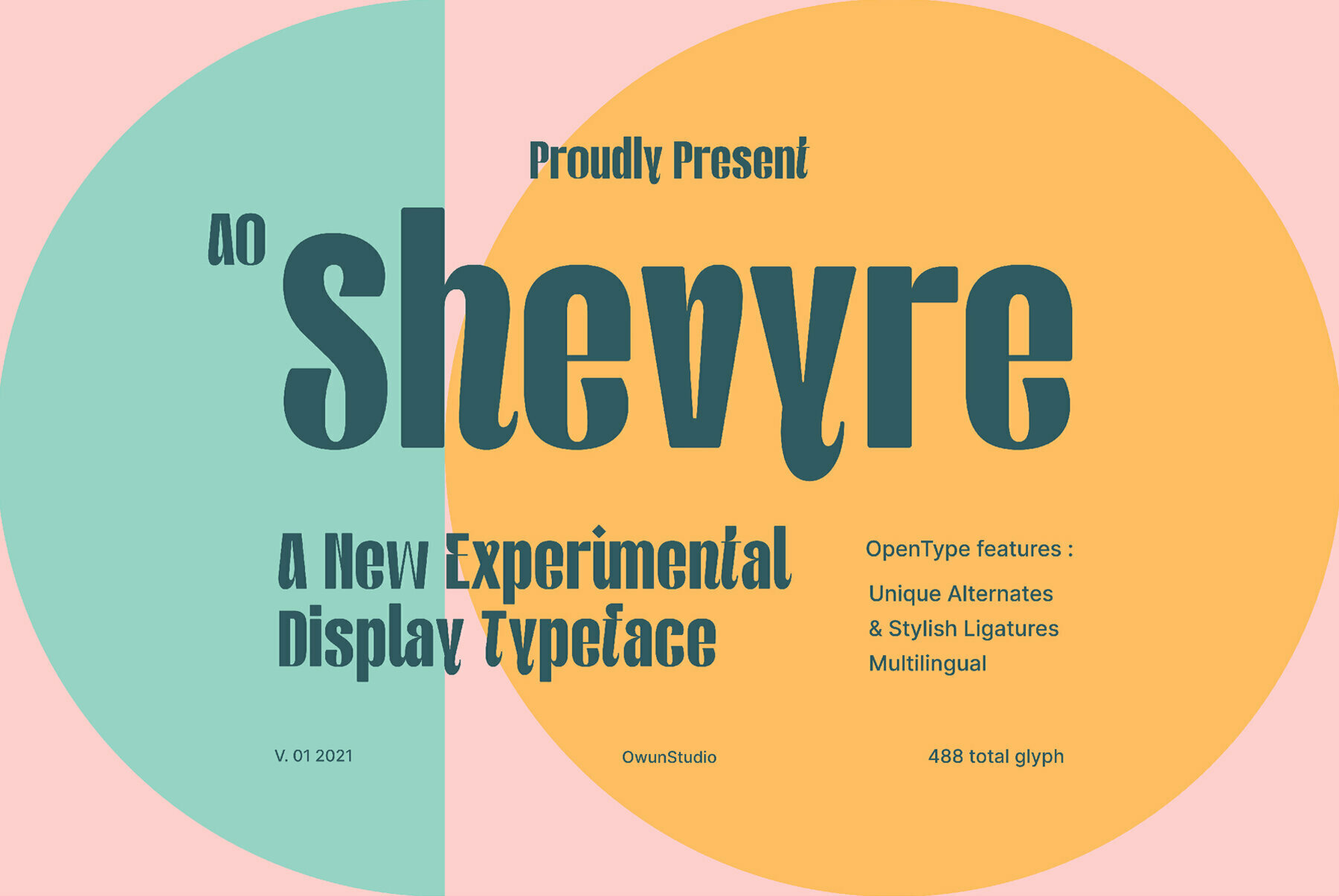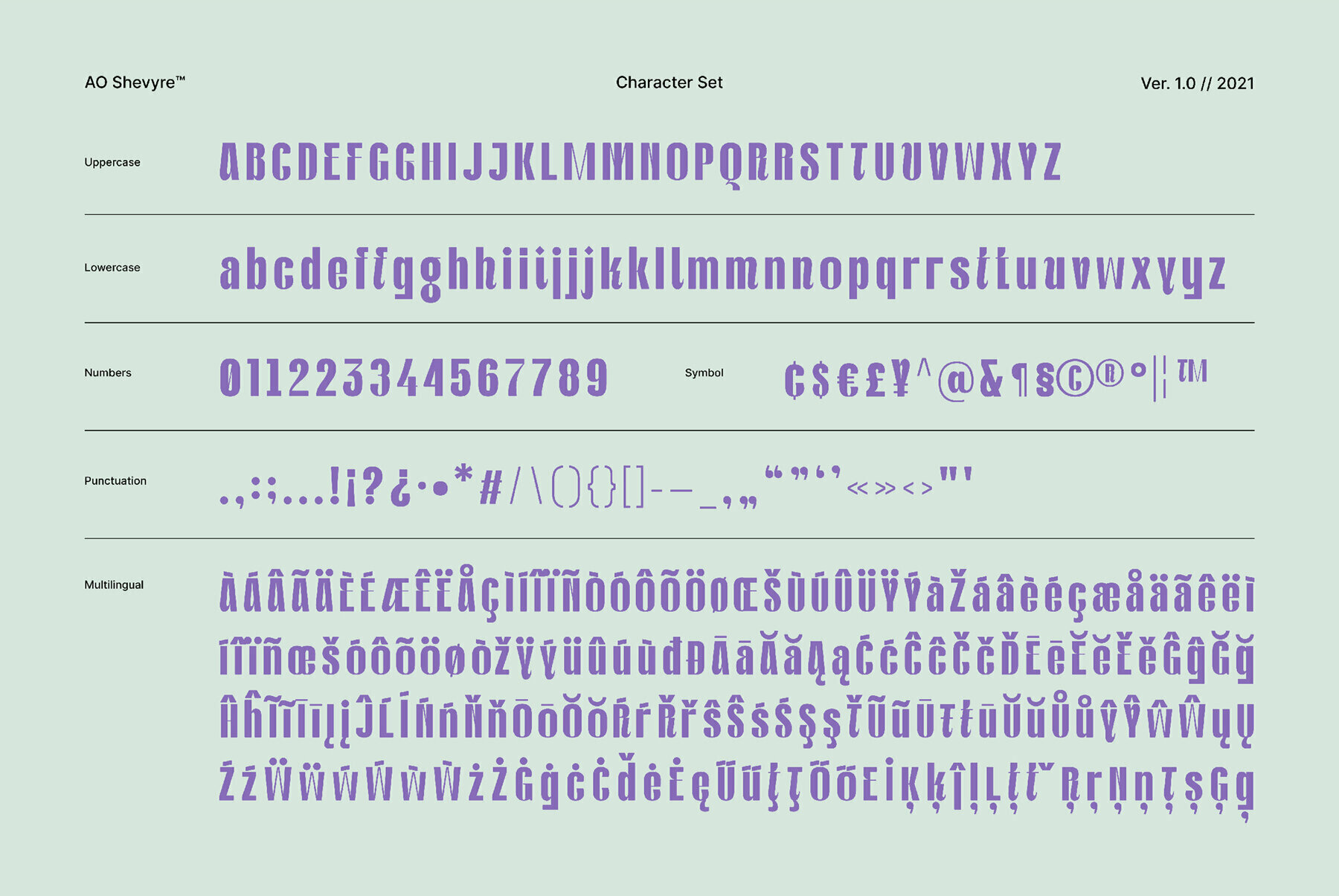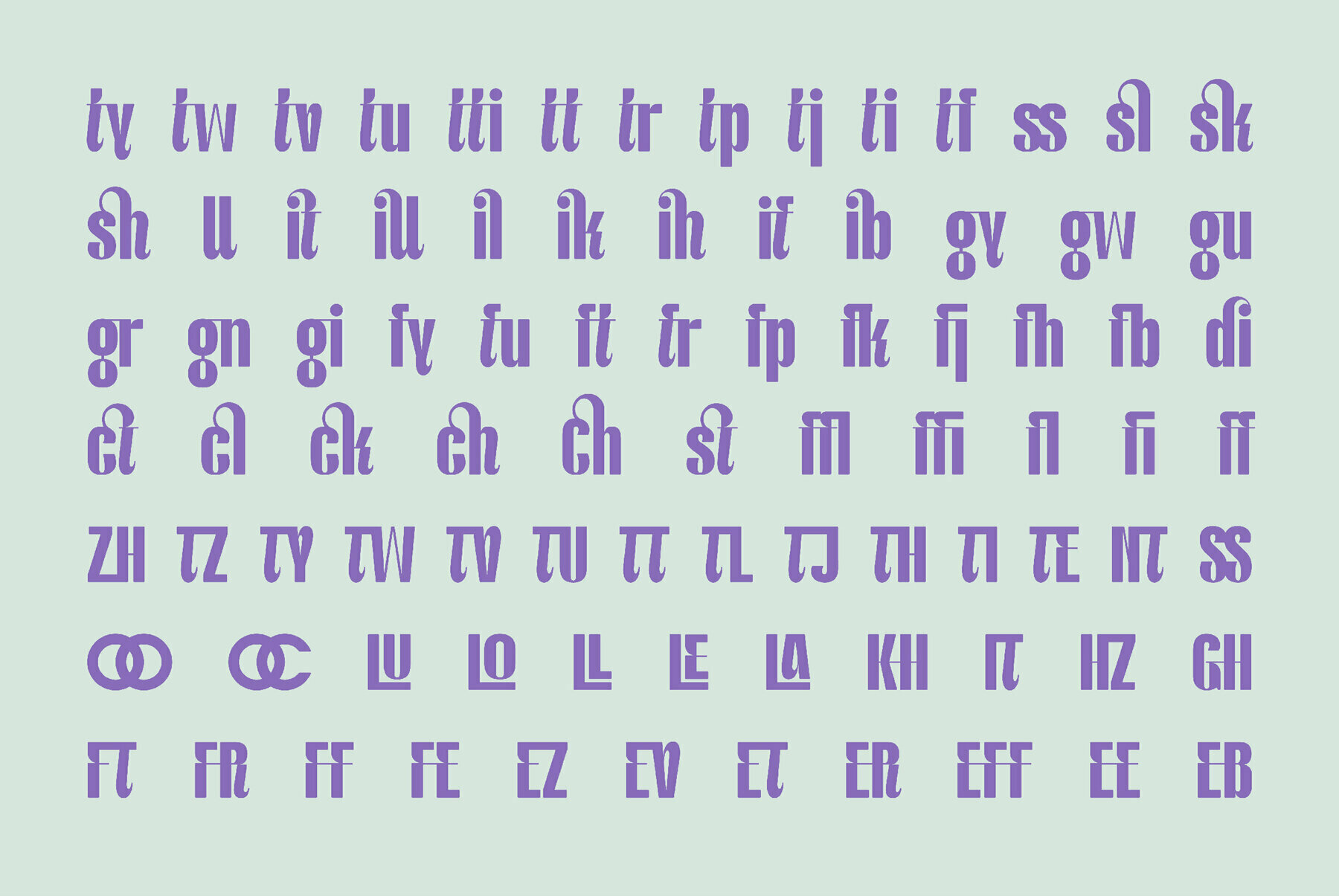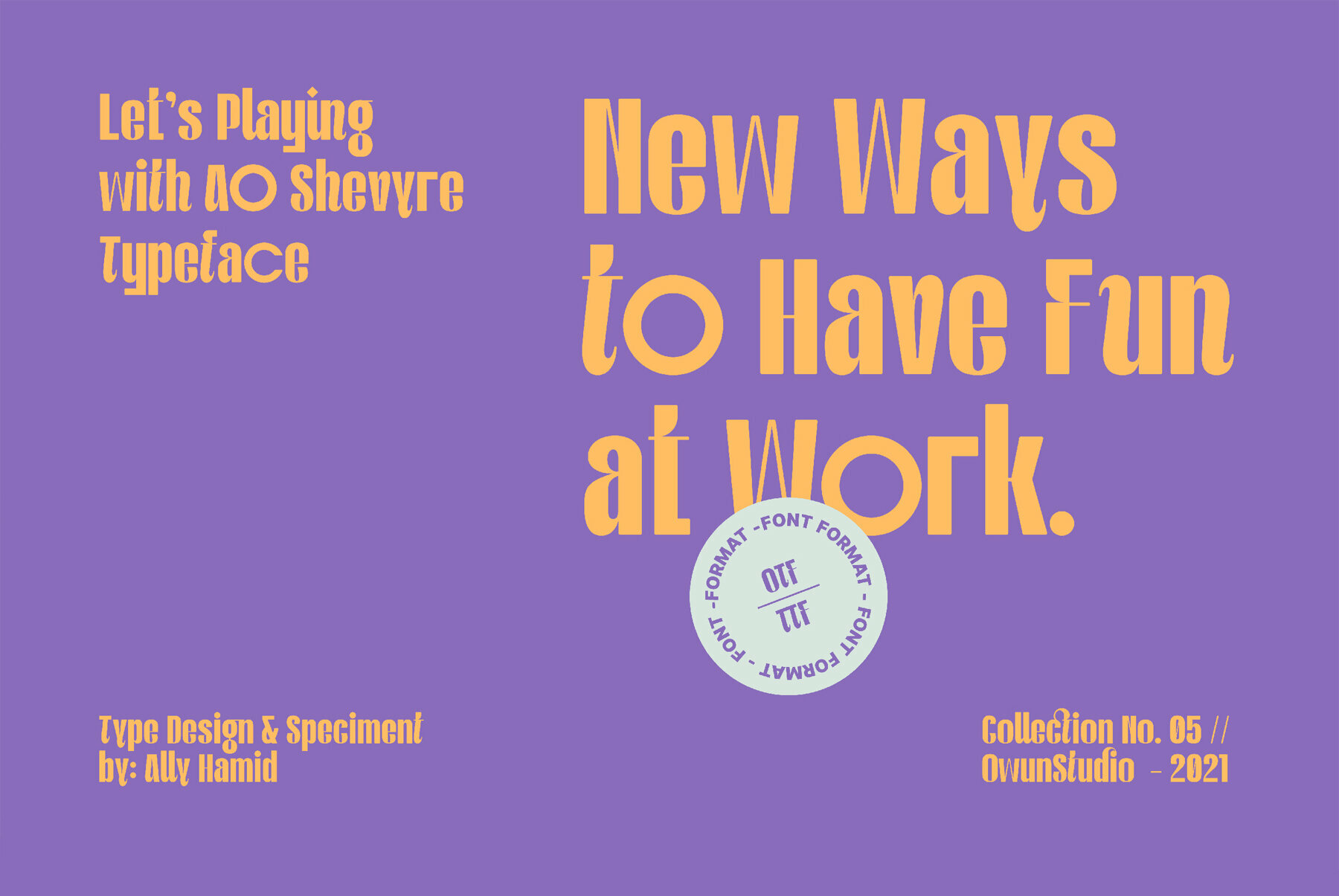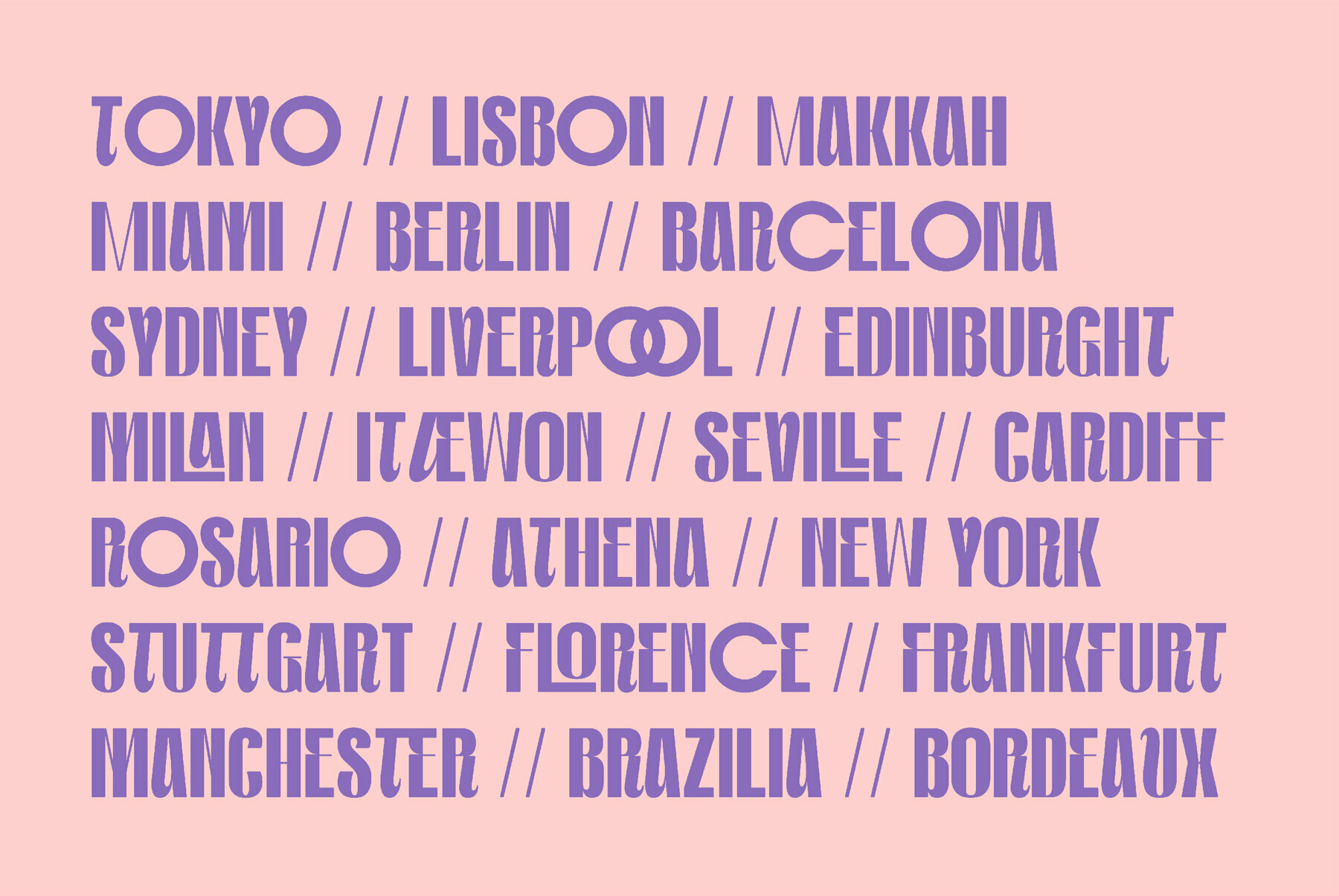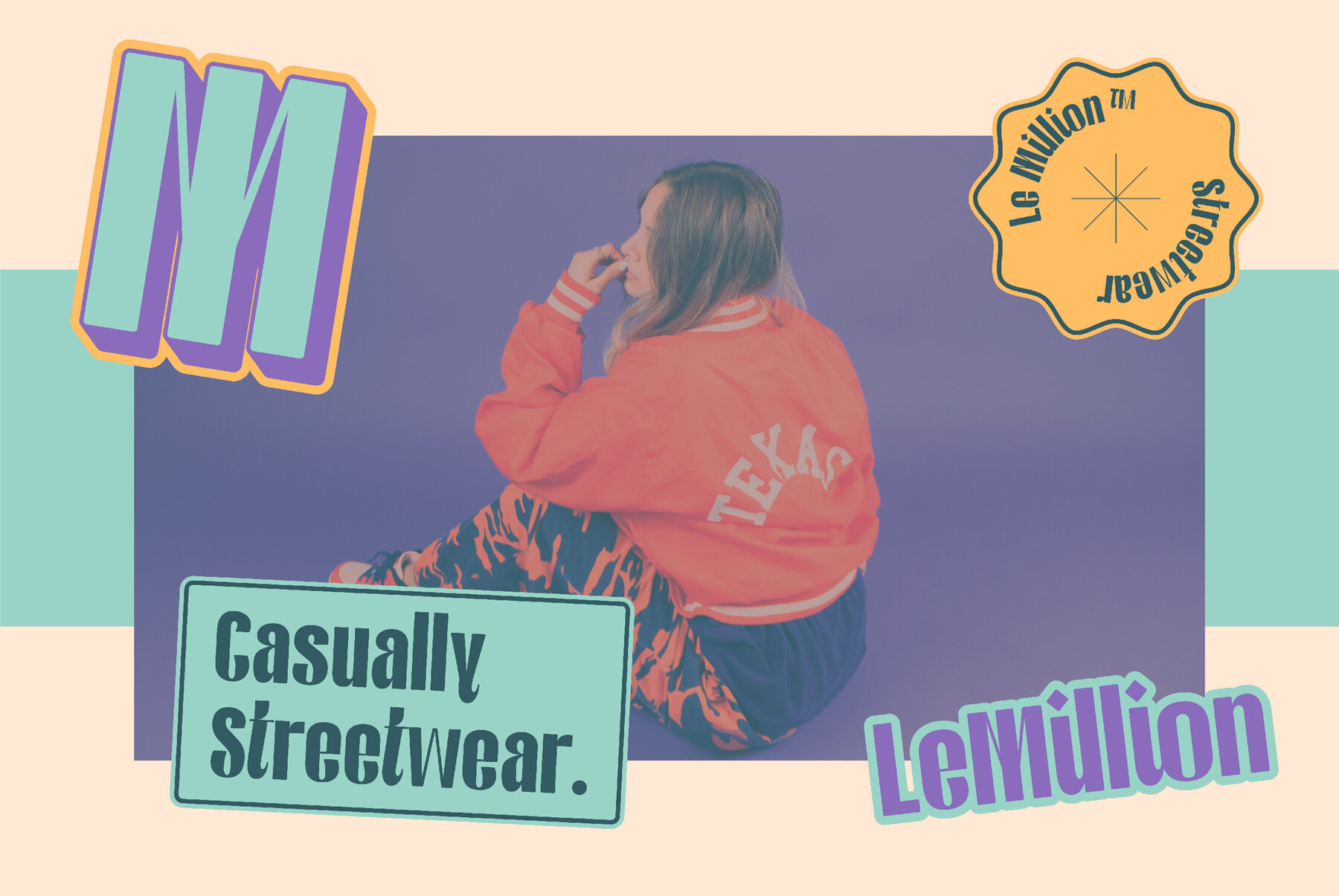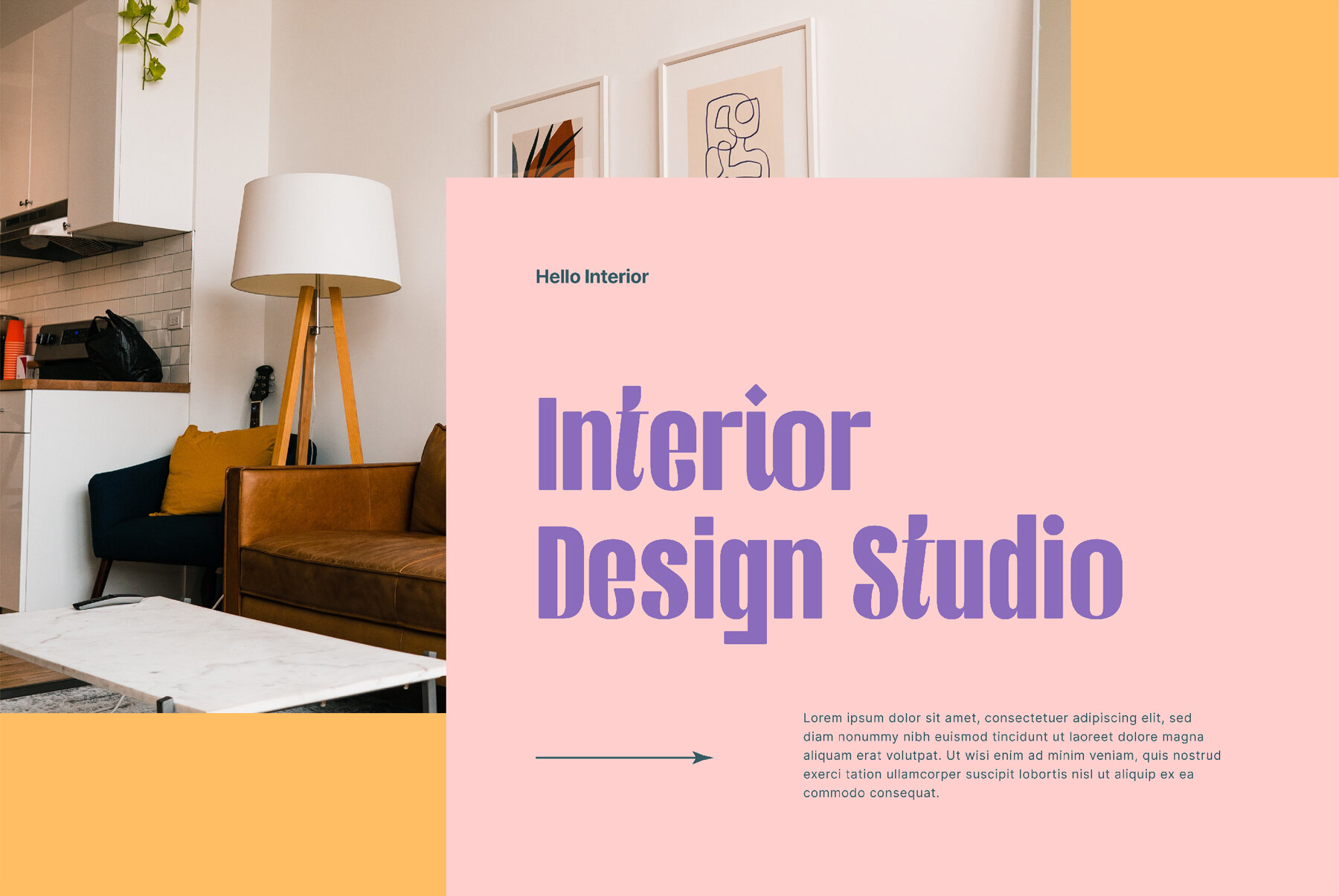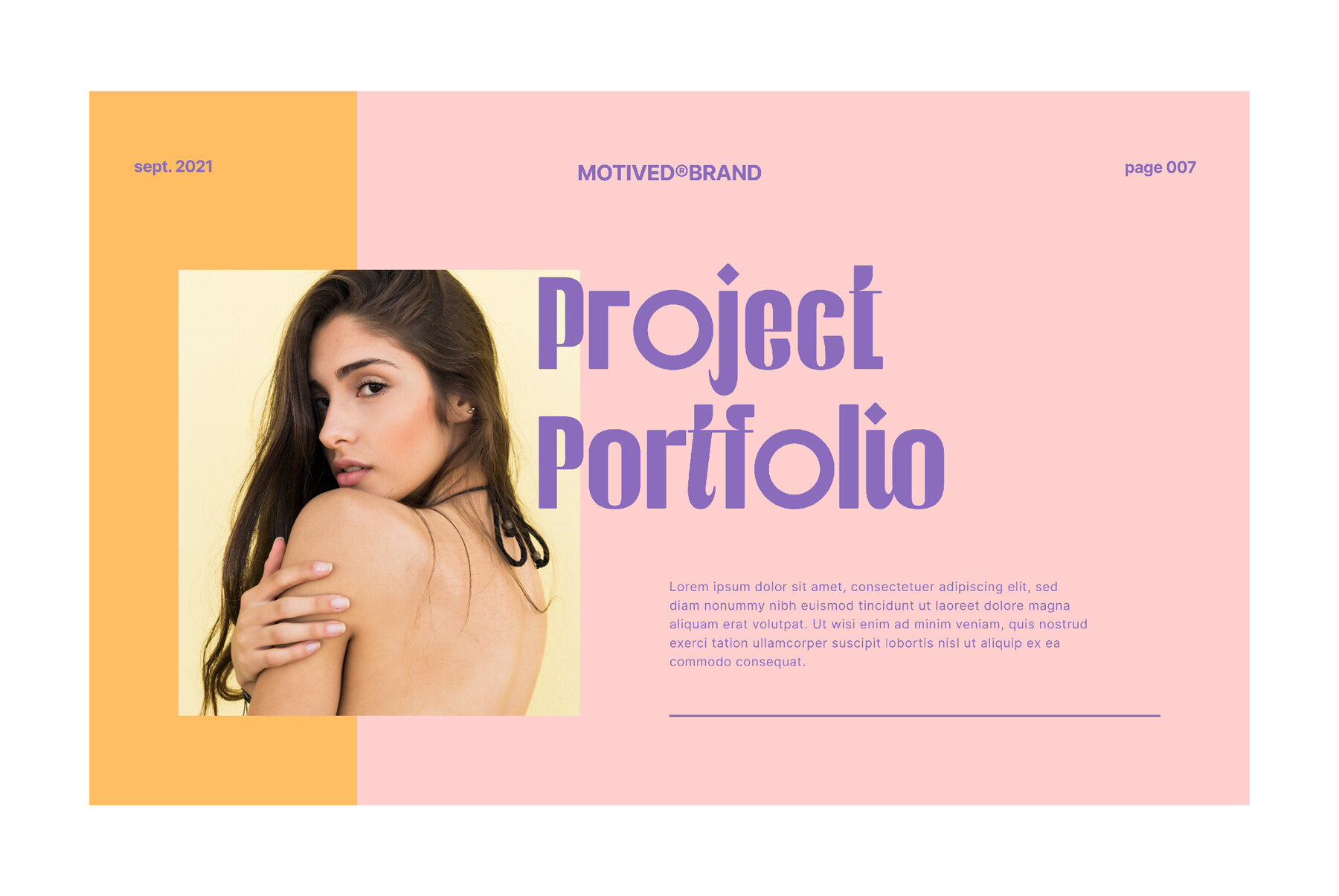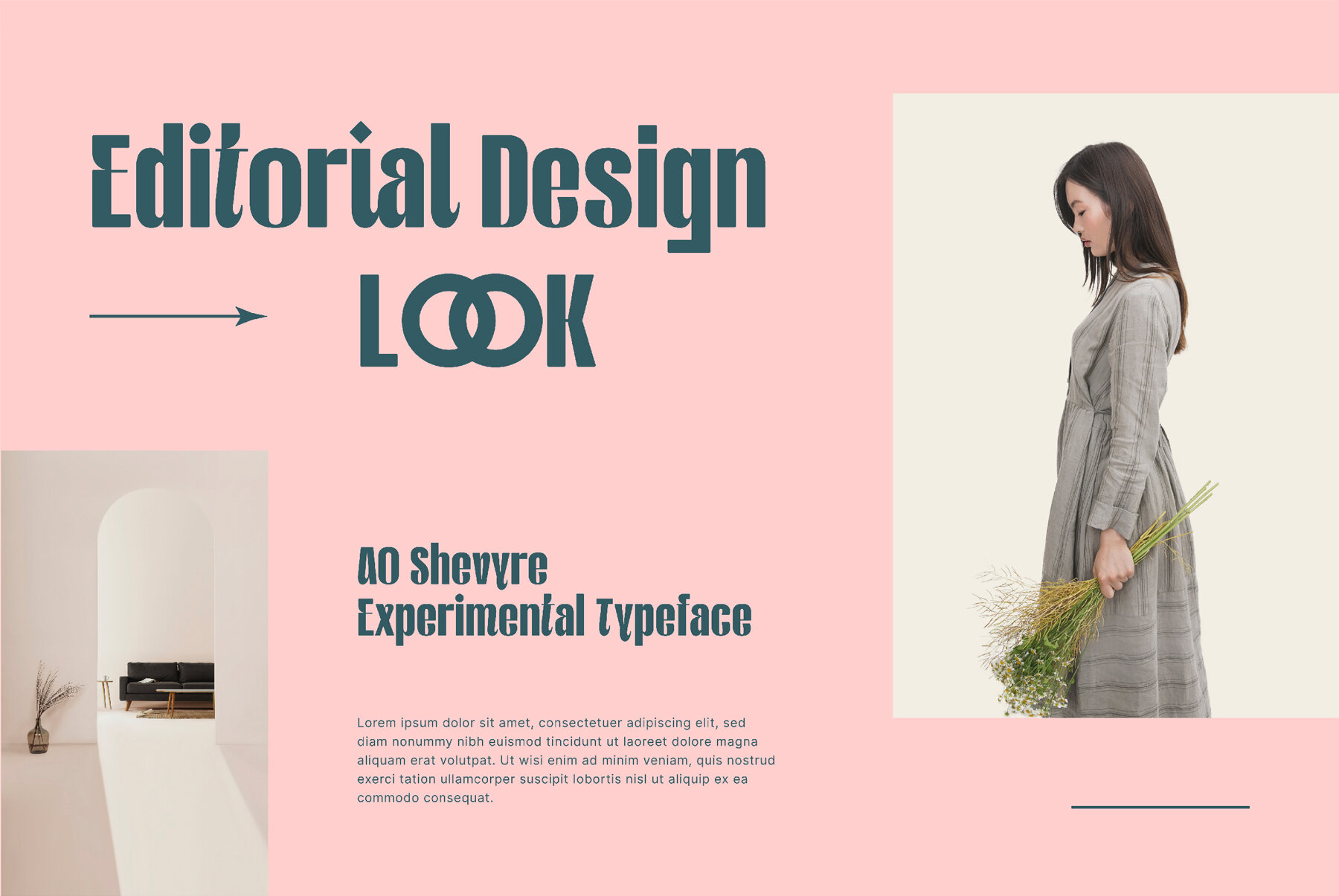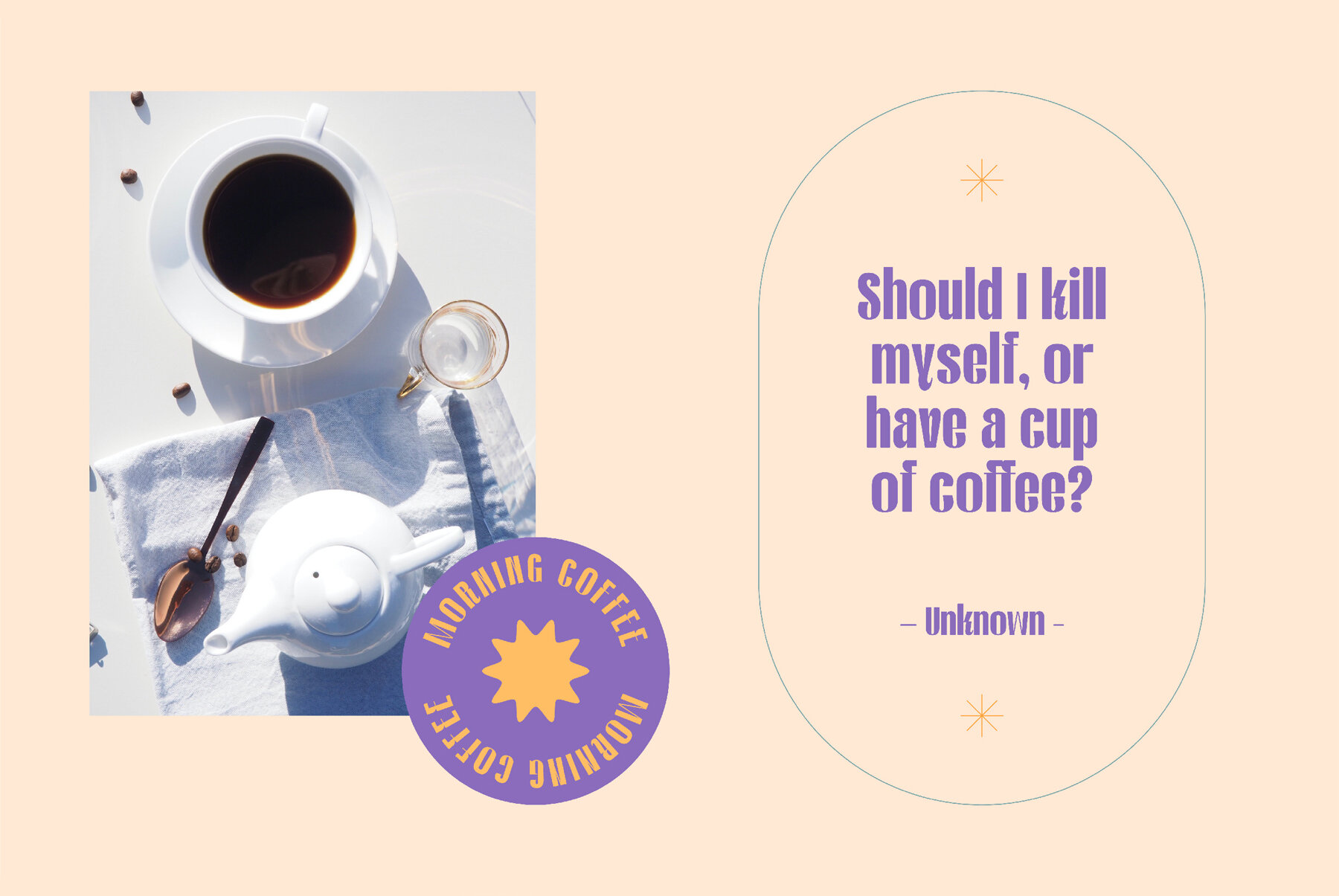
AO Shevyre Font
AO Shevyre
Imagine a world where you can create stunning, creative designs with the type of your choice. AO Shevyre is just that - chunky and bold enough for any project but still elegant in its design! With ligatures & alternatesOpenType features, this font has what it takes to make sure every piece looks perfect no matter how big or small your message may be.
- Alternate
- Uppercase and lowercase
- Numbering and Punctuation